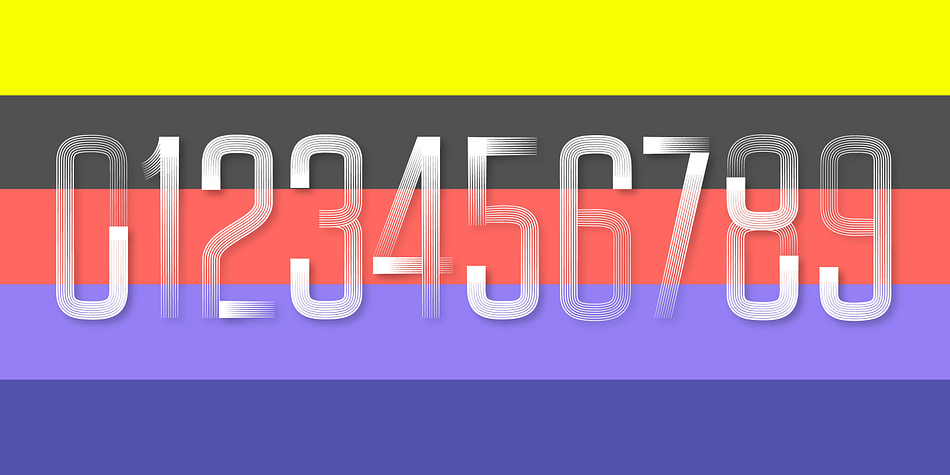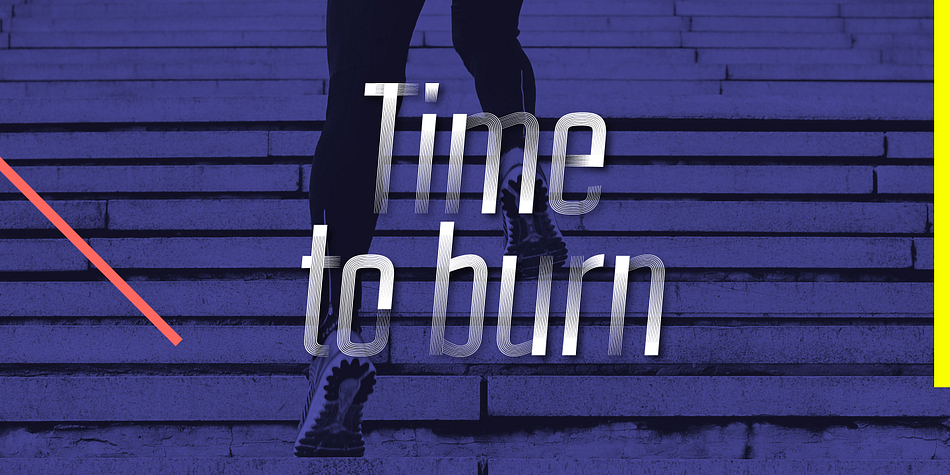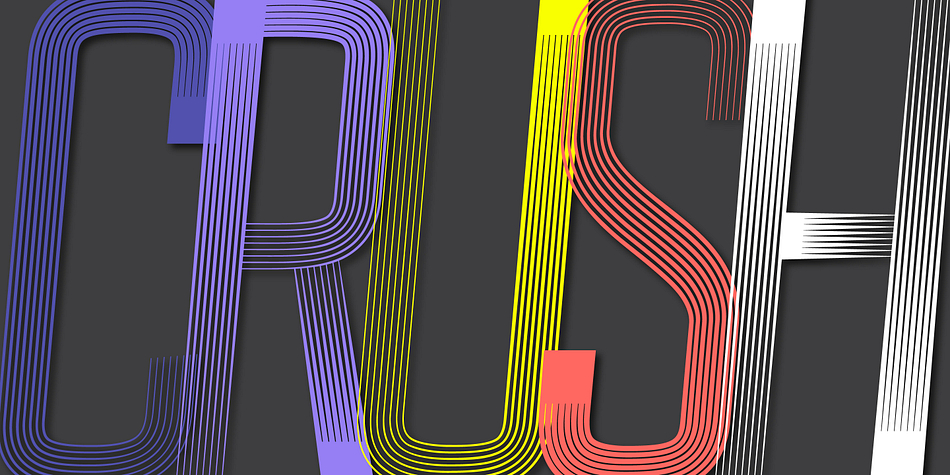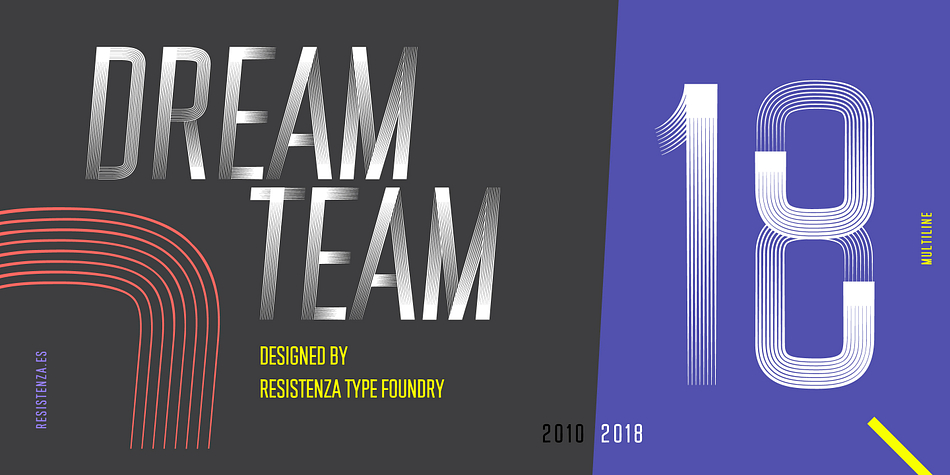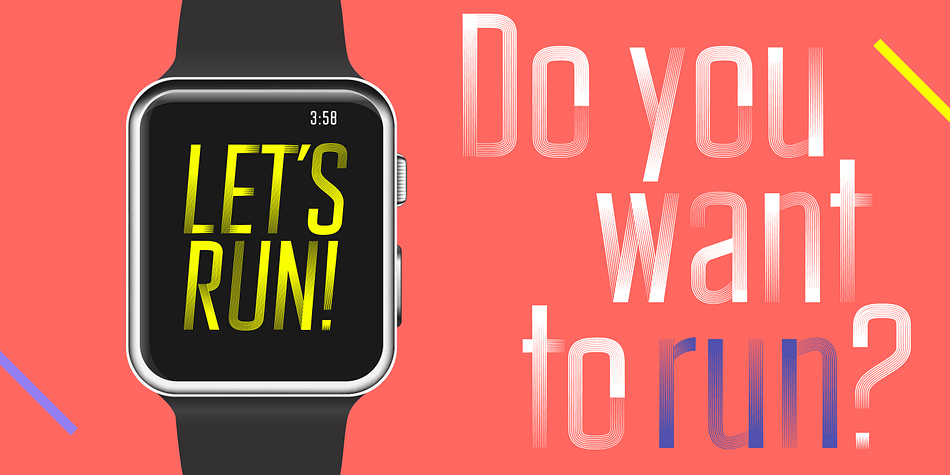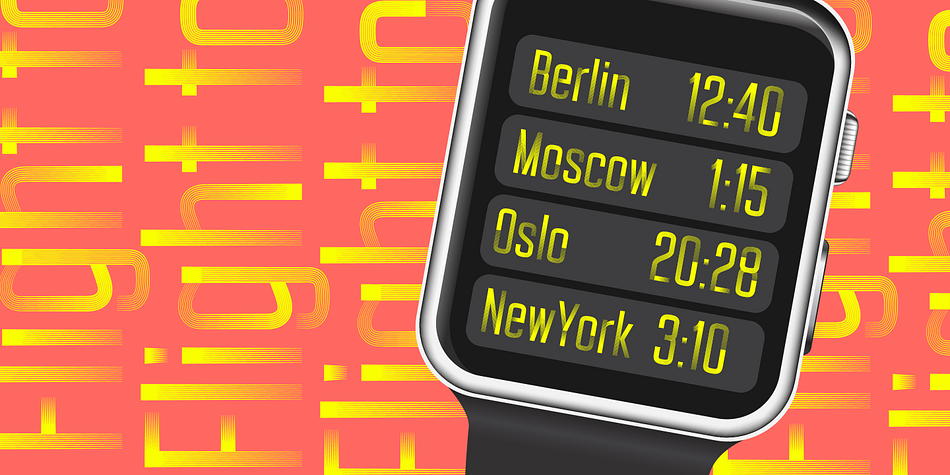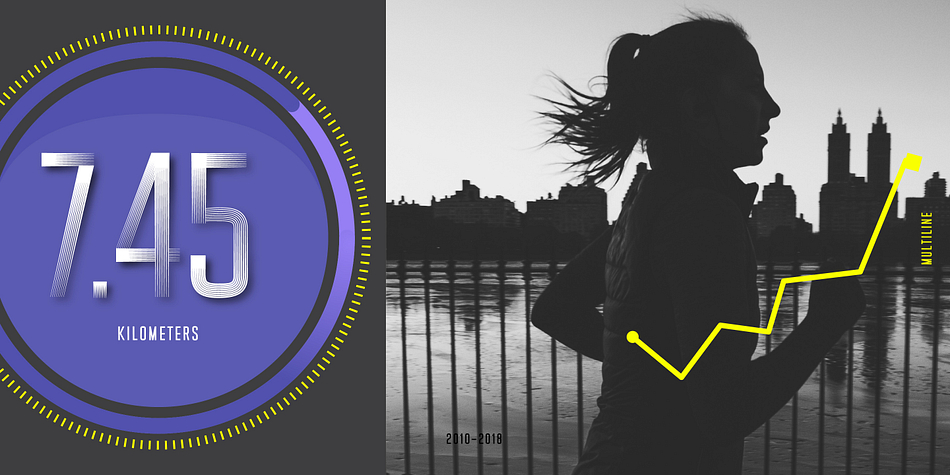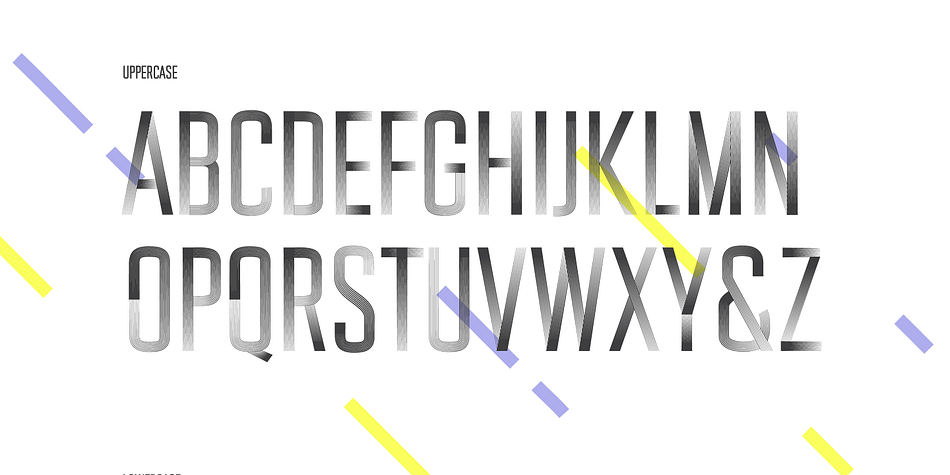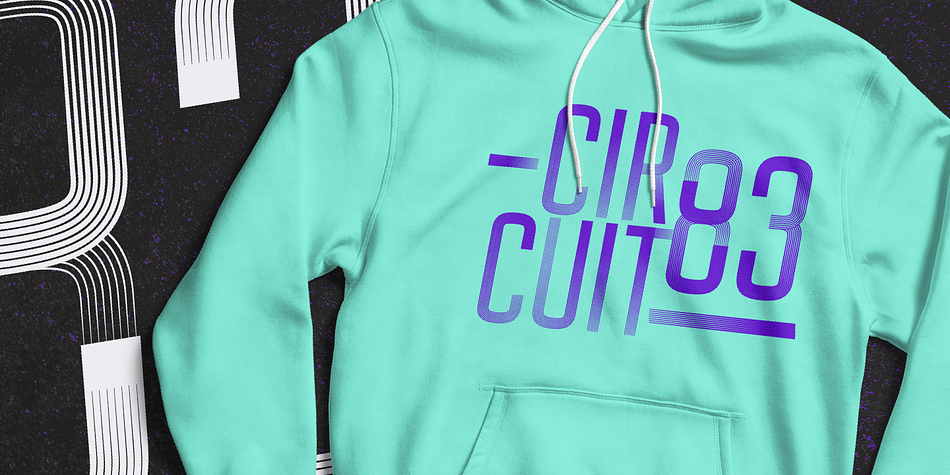
Designed by Paco González and Giuseppe Salerno, DreamTeam is a display font family. This typeface has four styles and was published by Resistenza.es.
Lining up on the start line is Resistenza’s DreamTeam! This fit font’s long limbs, nimble movement and shifting weight make the multiline-display (inspired by bestseller Afrobeat) perfect to grab attention on signage, print advertising and editorial applications like book covers.
DreamTeam’s distinctive forms also make it ideal for branding applications and obviously with its directional movement and the suggested speed DreamTeam’s 4 styles would be DreamSolution’s on athleisure apparel and clothing lines.
Available in Regular, Italic, as well as a paired “Thicker” line weight for bolder outcomes, DreamTeam pulls from AfroBeats smart use of geometry to create tone and optical gradient with solid black linear devices. The resulting rhythm and shadowing of letterforms, create visual intrigue and exciting typographic outcomes.